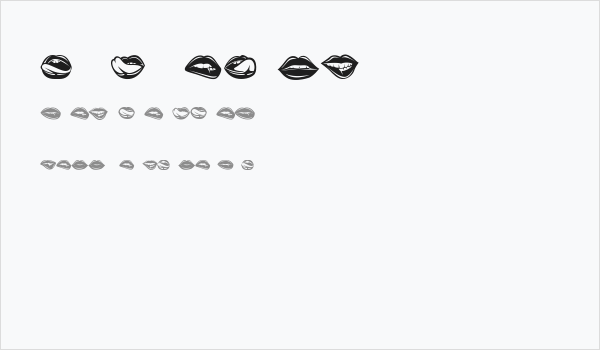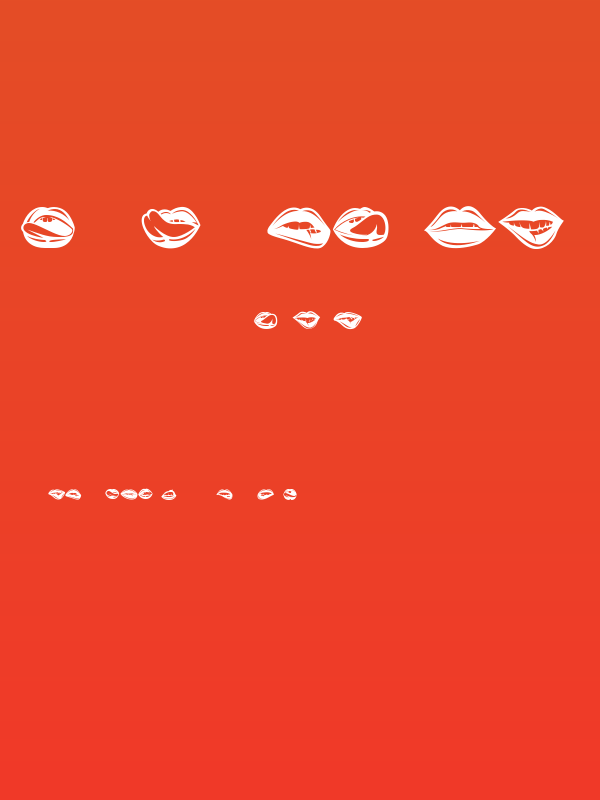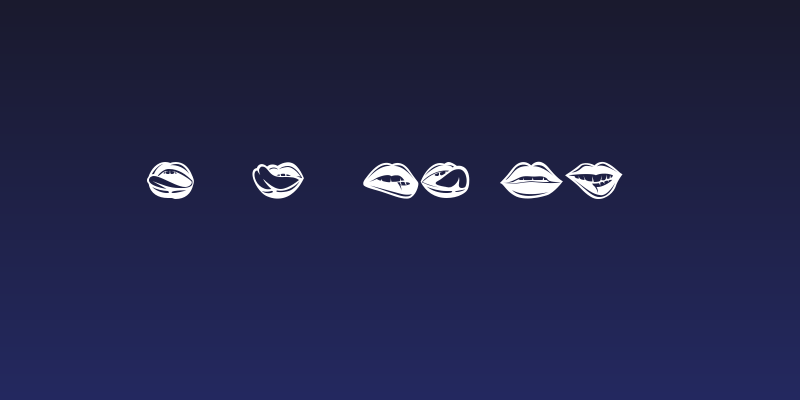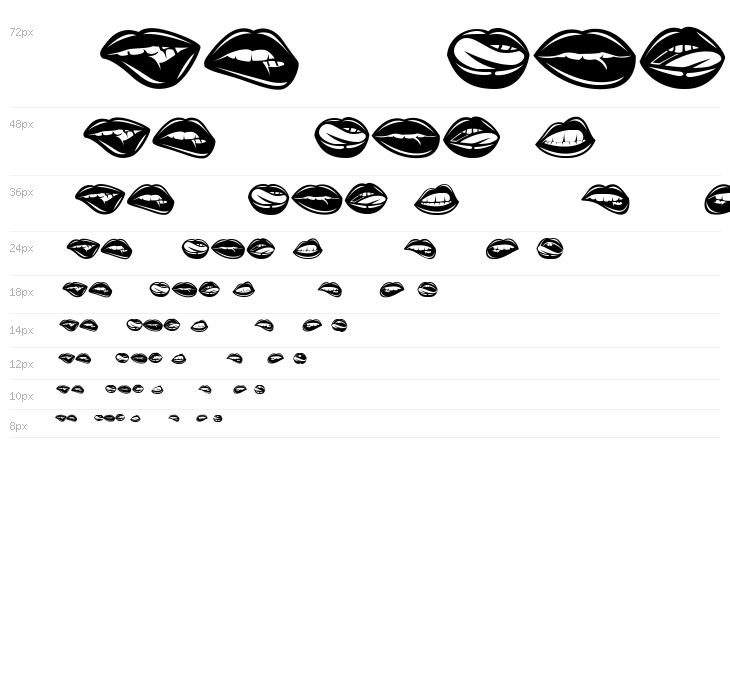
Mund Regular Font
Mund Regular Description
A highly decorative and illustrative font where each character is represented by a stylized drawing of lips in various expressions, filled with bold black and white contrast, giving a playful and artistic appearance.
| Overall Style | Decorative, Playful, Artistic |
| Use Case | Logos, Headlines, Posters, Artistic displays |
| Proposed Projects | Posters, album covers, fashion branding, party invitations, editorial headlines, art projects. |